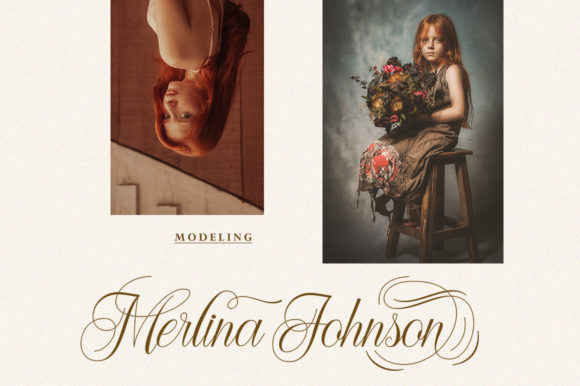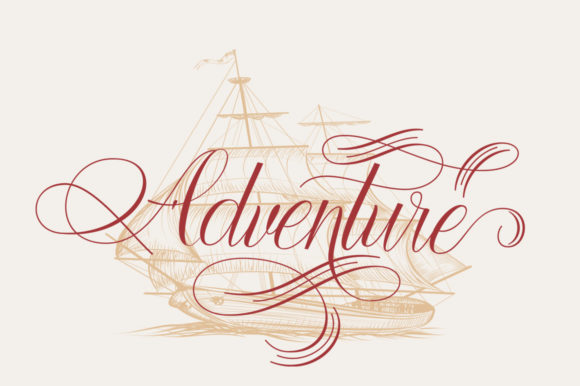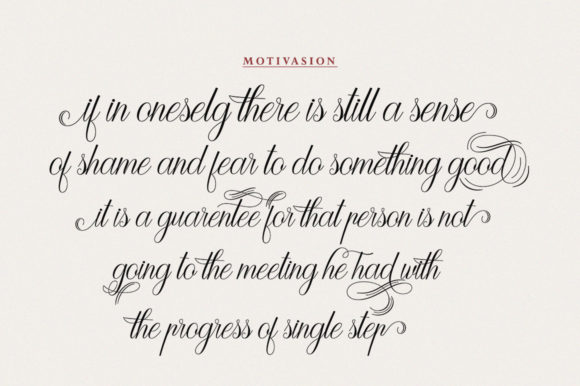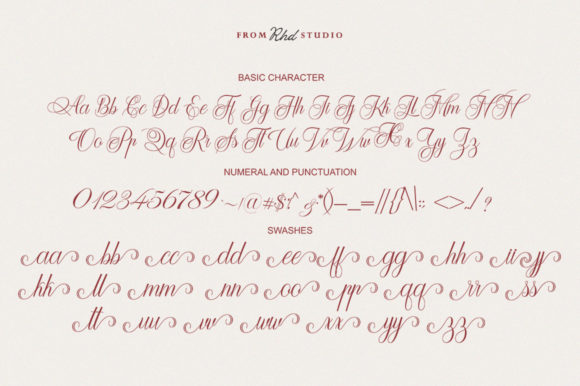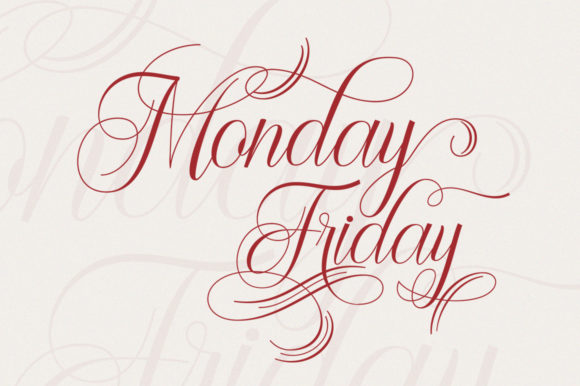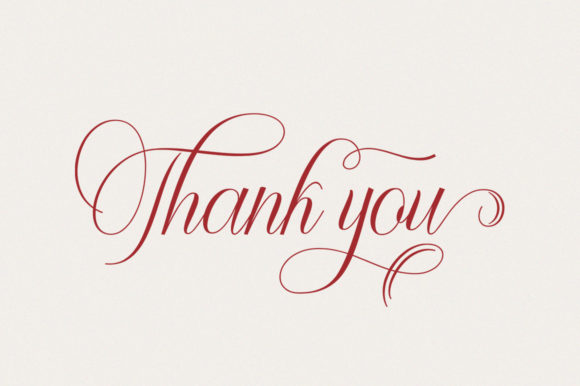
Introducing Amira Font: Elevate Your Designs with Elegance and Sophistication
In the world of typography, fonts play a crucial role in conveying the tone and personality of a brand or design. For designers and crafters looking for a stylish and slim script font to elevate their projects, Amira Font is an excellent choice. This versatile font is perfect for a wide range of applications, including product packaging, branding projects, magazine covers, social media, wedding designs, and more.
What Makes Amira Font Stand Out?
Amira Font is a beautifully crafted script font that exudes elegance and sophistication. Its slim and stylish design makes it perfect for adding a touch of luxury to any project. The font’s clean lines and flowing curves create a sense of movement and fluidity, making it ideal for designs that require a high level of visual appeal.
Key Features of Amira Font
- Stylish and Slim Design: Amira Font boasts a sleek and modern design that is sure to make your projects stand out.
- Script Font: The font’s script style adds a touch of elegance and sophistication to any design.
- Versatile: Amira Font can be used for a wide range of projects, from product packaging to social media graphics.
- Easy to Read: Despite its slim design, Amira Font is easy to read, making it perfect for body text and headlines.
Use Cases for Amira Font
Amira Font is a versatile font that can be used for a variety of projects. Here are some use cases to get you started:
- Product Packaging: Add a touch of luxury to your product packaging with Amira Font.
- Branding Projects: Use Amira Font to create a cohesive brand identity that exudes elegance and sophistication.
- Magazine Covers: Make your magazine covers stand out with Amira Font’s stylish and slim design.
- Social Media: Elevate your social media graphics with Amira Font’s modern and sleek design.
- Wedding Designs: Use Amira Font to add a touch of romance and elegance to your wedding designs.
Tips for Using Amira Font
Here are some tips for getting the most out of Amira Font:
- Pair with Bold Fonts: Pair Amira Font with bold fonts to create a striking contrast.
- Use for Headlines: Use Amira Font for headlines and titles to add a touch of elegance.
Amira Font is a stylish and slim script font that is perfect for designers and crafters looking to elevate their projects. With its elegant and sophisticated design, Amira Font is versatile and can be used for a wide range of applications. Whether you’re working on product packaging, branding projects, or social media graphics, Amira Font is an excellent choice.